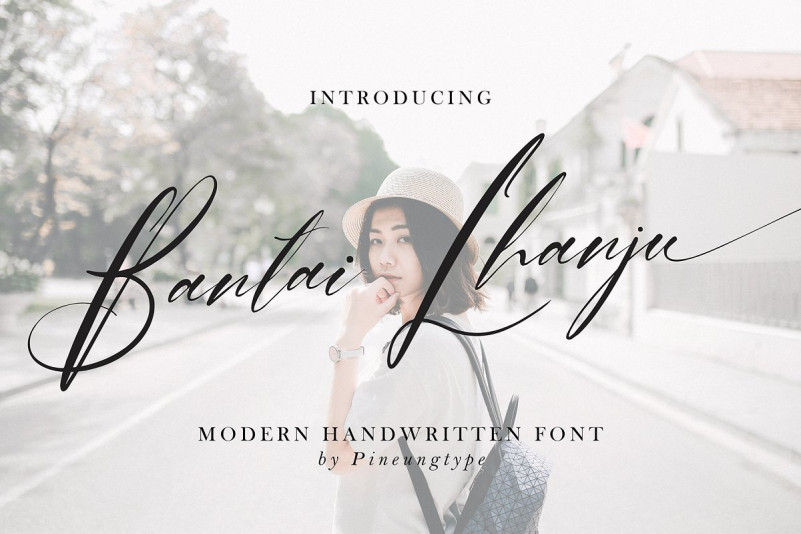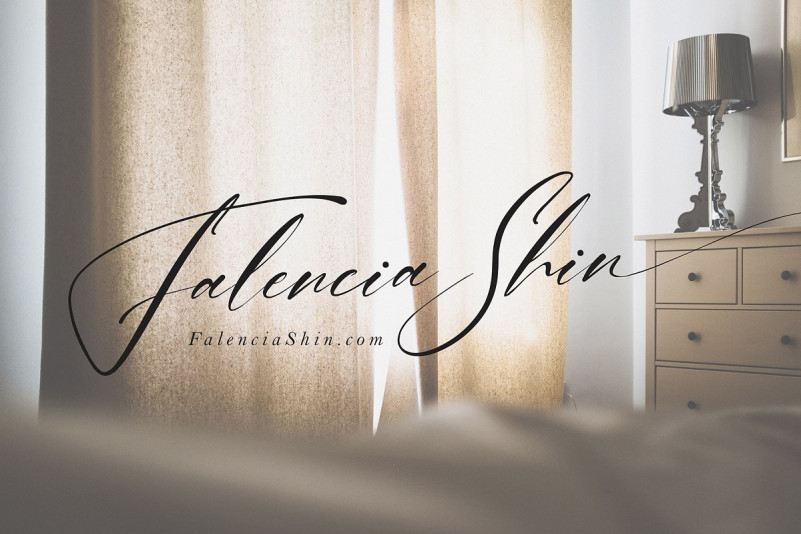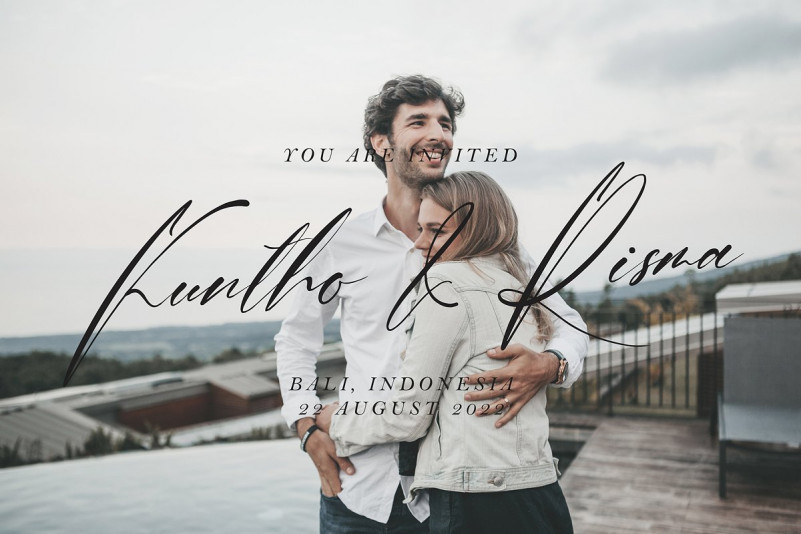
Bantai Lhanju Font
Bantai Lhanju handwritten script font font with new style, this font will perfect for many different project ex: quotes, logo, blog header, poster, banding, fashion, apparel, letter, invitation, stationery, etc…